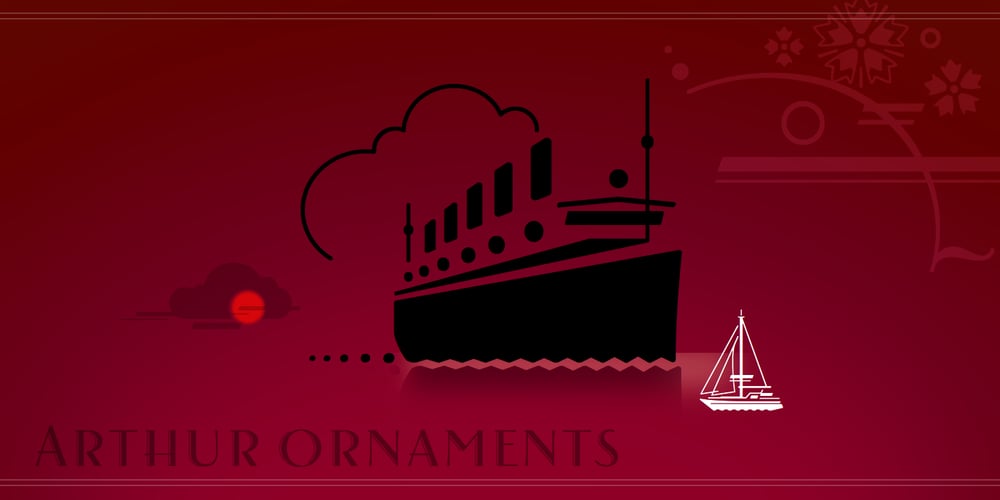
Arthur Ornaments
Arthur Ornaments font
Arthur Ornaments Font Family was designed by Andreas Stötzner and published by SIAS. Arthur Ornaments contains 1 styles and family package options. Arthur Ornaments offers a range of about 70 unique ornaments and pictographs in the sophisticated style of the Art Deco era: lavish floral compositions and leaves, borderpieces and geometric elements – and a stunning set of period lifestyle, sports and travel pics. Arthur Ornaments lend a breath of elegance and exclusivity to your designs. Arthur Ornaments is the perfect compagnon to all fonts of the Arthur Sans, Arthur Cabinet, Ardagh and Artemis font series. Use Arthur Ornaments to create posters, banners, menus, invitations and title pages of distinctive noblesse and beauty. Combine them with other Arthur fonts for a perfect match. The Arthur Ornaments set of characters is the very same as the respective part of Arthur Sans Regular (if you already have Arthur Sans Regular you don’t need this one!). Technical remark: Many of the characters in this font are encoded in the 26xx, 27xx and 1Fxxx ranges. However, for the ease of use most of the glyphs are doubled to the a–z, A–Z and 1–9 positions. _________________________________________________________________________________ If you like fine ornaments you should also have a look at Behrens Ornaments, Andron Ornaments and Leipziger Ornamente.